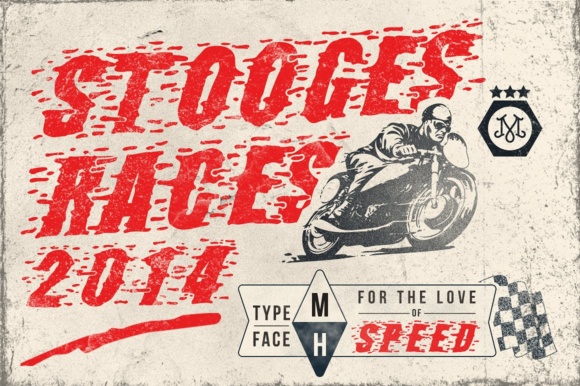
Ignite your designs with Stooges Races, a retro gem that captures the essence of vintage motorcycling. This display typeface, crafted with meticulous attention to detail, is a true testament to the golden age of handcrafted signage and posters.
Immerse yourself in the world of retro aesthetics, where Stooges Races reigns supreme. Its hand-drawn charm exudes a timeless allure, evoking the nostalgia of bygone eras. Picture your designs adorned with the unique characters of Stooges Races, transporting your audience to a world of classic automobiles, roaring engines, and the thrill of the open road.
Unleash your creativity and embrace the versatility of Stooges Races. Whether you're designing logos, posters, or game graphics, this font will add an instant touch of vintage flair. Its bold and distinctive characters demand attention, making your designs stand out from the crowd.
Step into the world of car enthusiasts and rev up your designs with Stooges Races. Its vintage charm and hand-drawn style are a perfect match for projects related to cars, motorcycles, and racing. Imagine your designs adorned with this font, capturing the essence of speed and adrenaline.
Stooges Races is more than just a font; it's a gateway to a world of creative possibilities. Its unique style and retro appeal will add a touch of nostalgia and timeless elegance to your projects.